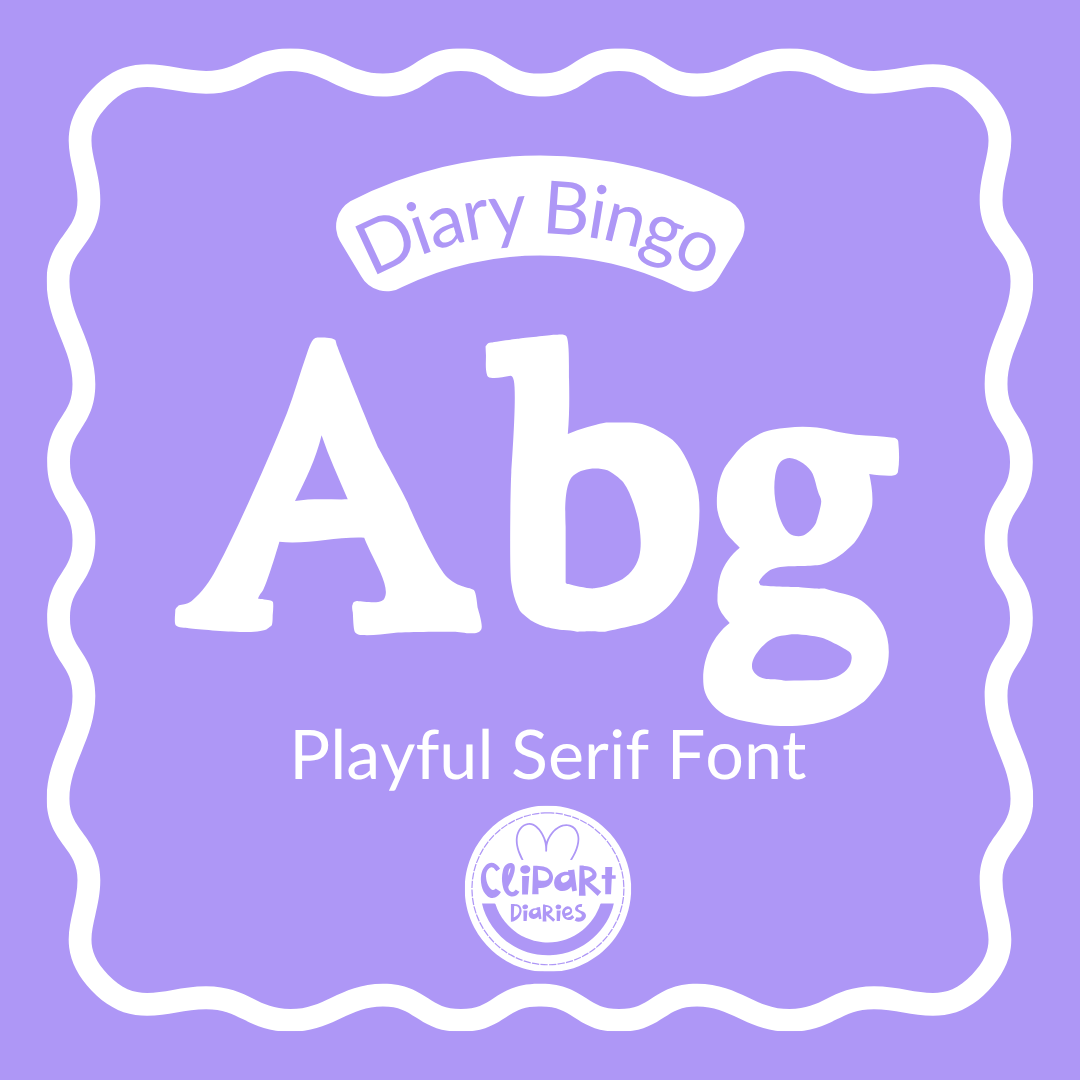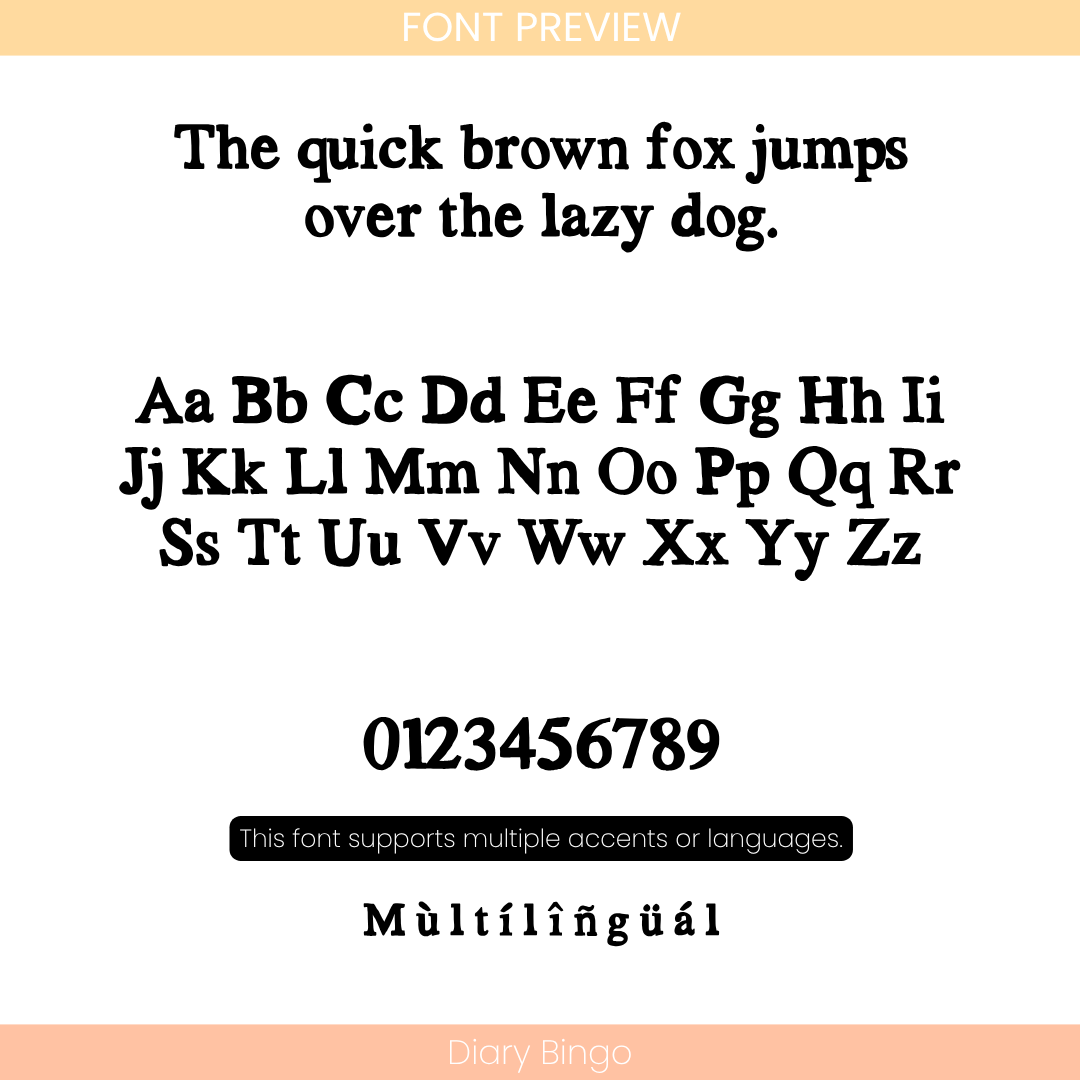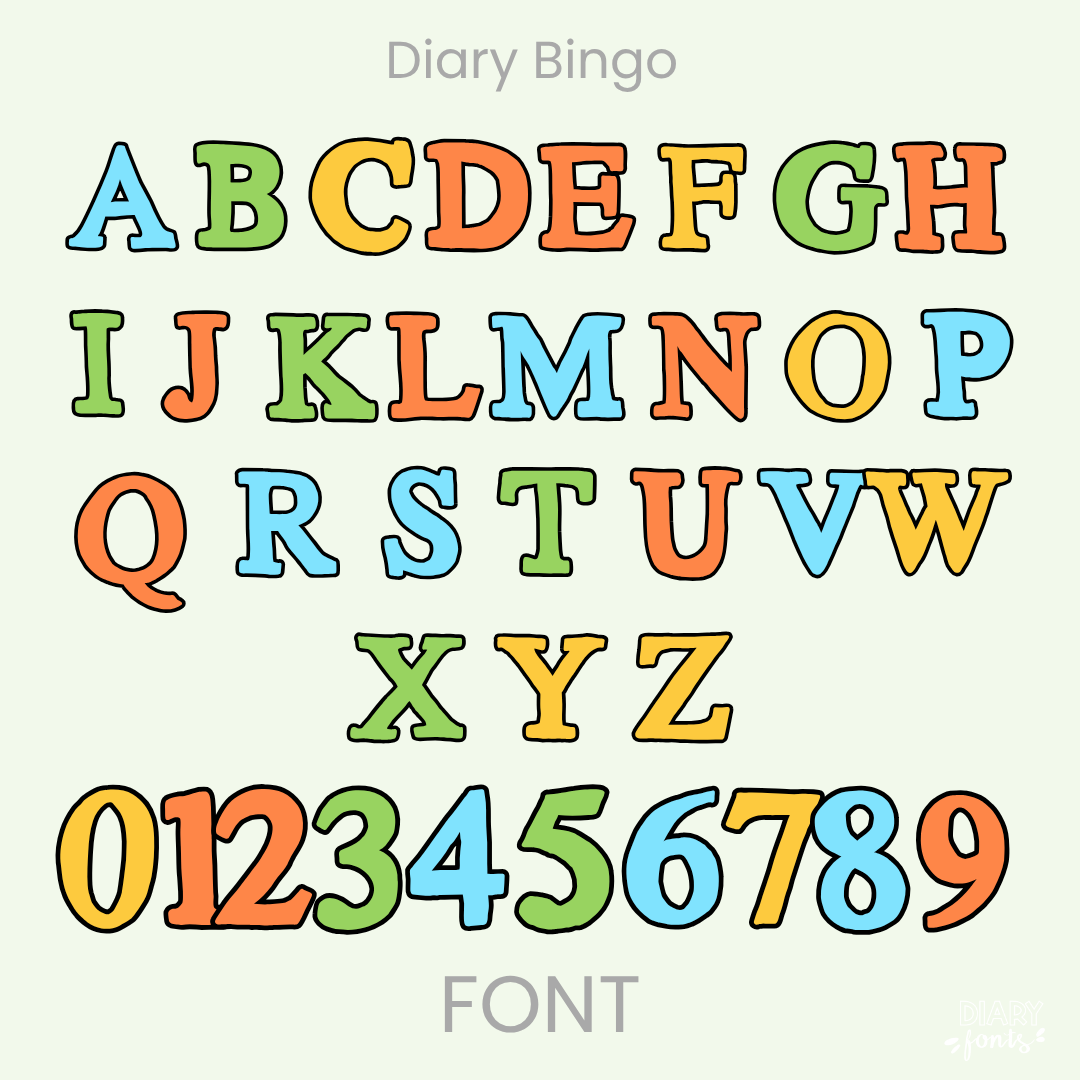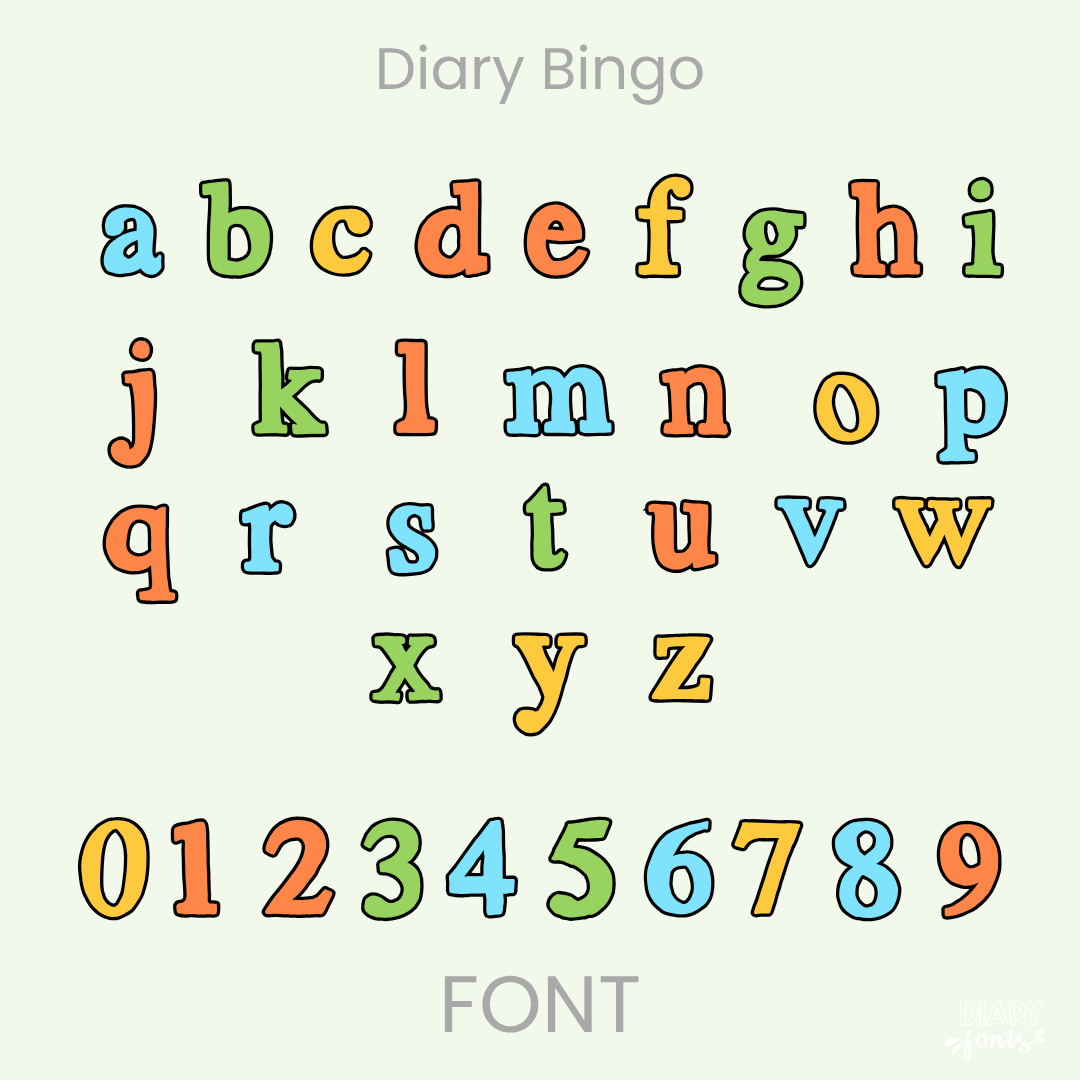
Give your creative projects a unique personality with Diary Bingo, a playful serif font that combines the structure of a classic serif with a charming, hand-drawn aesthetic. This versatile typeface includes a comprehensive set of uppercase and lowercase letters, numbers 0–9, and multi-language support for various accents, making it a perfect fit for diverse educational content. It is specifically engineered for seamless compatibility with Canva, MS Office, and Adobe Apps, as well as popular iPad tools like GoodNotes and Procreate. Whether you are designing engaging worksheets, classroom decor, or digital planners, Diary Bingo offers a polished yet fun look that is ideal for both personal and commercial use.